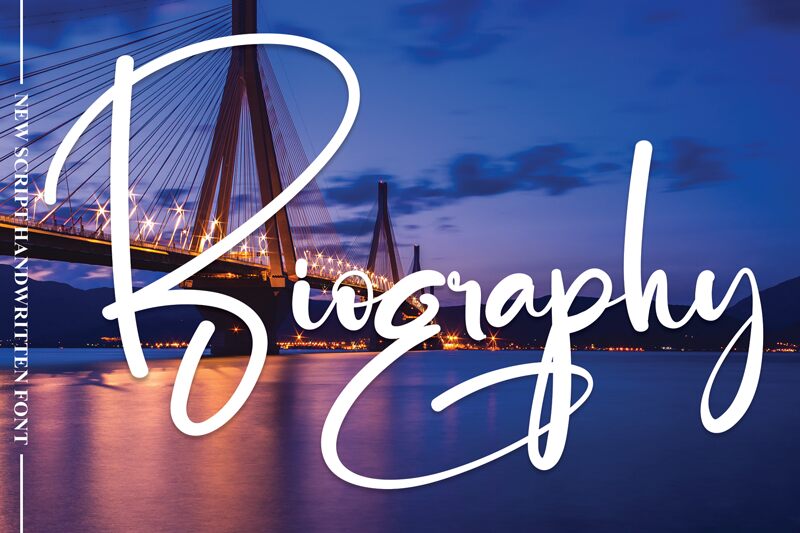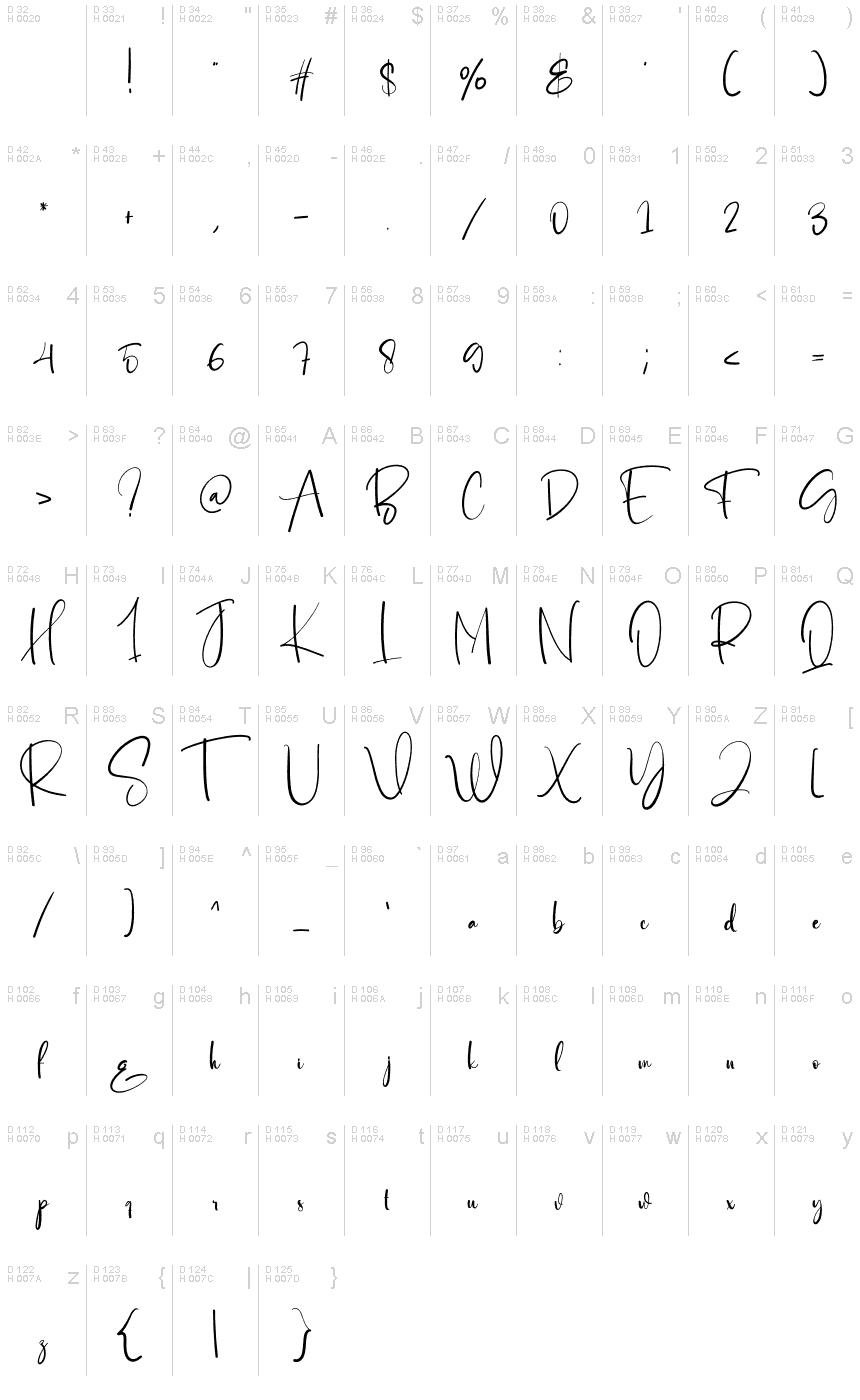
Biography
Biography, designed by Scratchones, is a handwritten font that exudes personality and charm. With its light weight and elegant flow, this font mimics the finesse of personal script, making it perfect for invitations, branding, and editorial designs where a touch of human presence is desired. The subtle irregularities in Biography's strokes add authenticity to its appearance, resembling the natural variation found in actual handwriting.
The style of Biography is both inviting and distinctive; it offers a balance between readability and decorative flair. This makes it highly versatile for various creative projects seeking to convey intimacy and individuality without sacrificing elegance. Whether you're designing heartfelt greeting cards or curating an artisanal product label, Biography's handwritten aesthetic provides an organic warmth that digital typefaces often miss.
Embrace the artistic expression that Scratchones' Biography brings to your design work – a font that not only speaks but also resonates with the nuances of human touch.